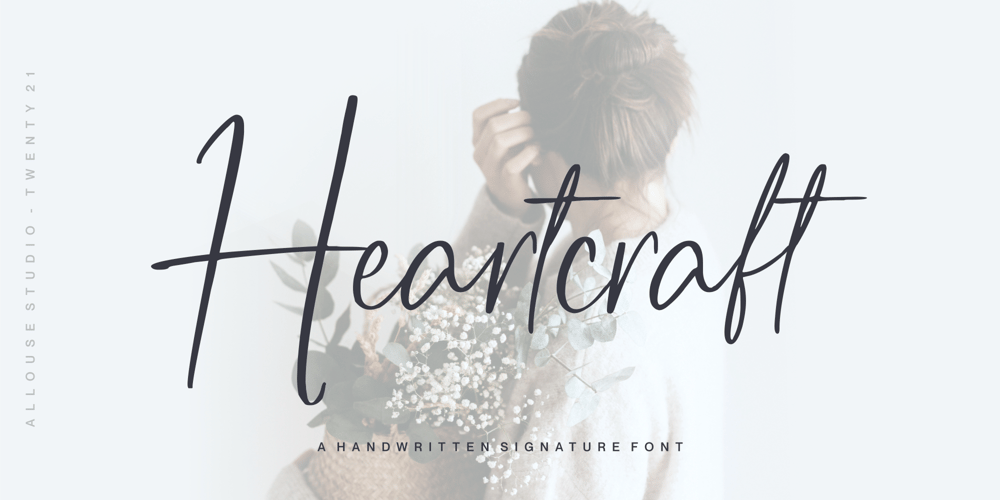
Heartcraft
Heartcraft font
Heartcraft Font Family was designed by Fachrizal Yusuf and published by Allouse Studio. Heartcraft contains 1 styles and family package options. Proudly Present, Heartcraft a Handwritten Signature Font.Heartcraft is perfect for any titles, logo, product packaging, branding project, megazine, social media, wedding, or just used to express words above the background.Heartcraft also come with Multi-Lingual Support.Enjoy the font, feel free to comment or feedback, send me PM or email. Thank You!